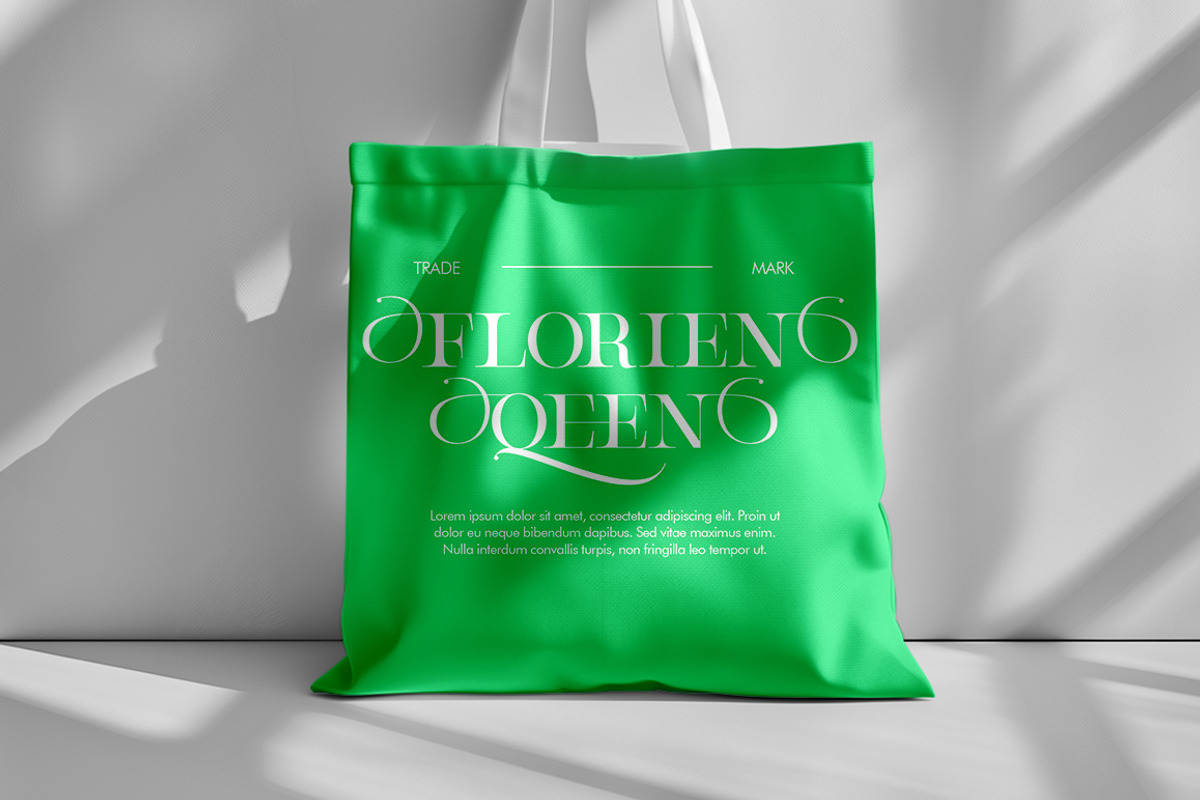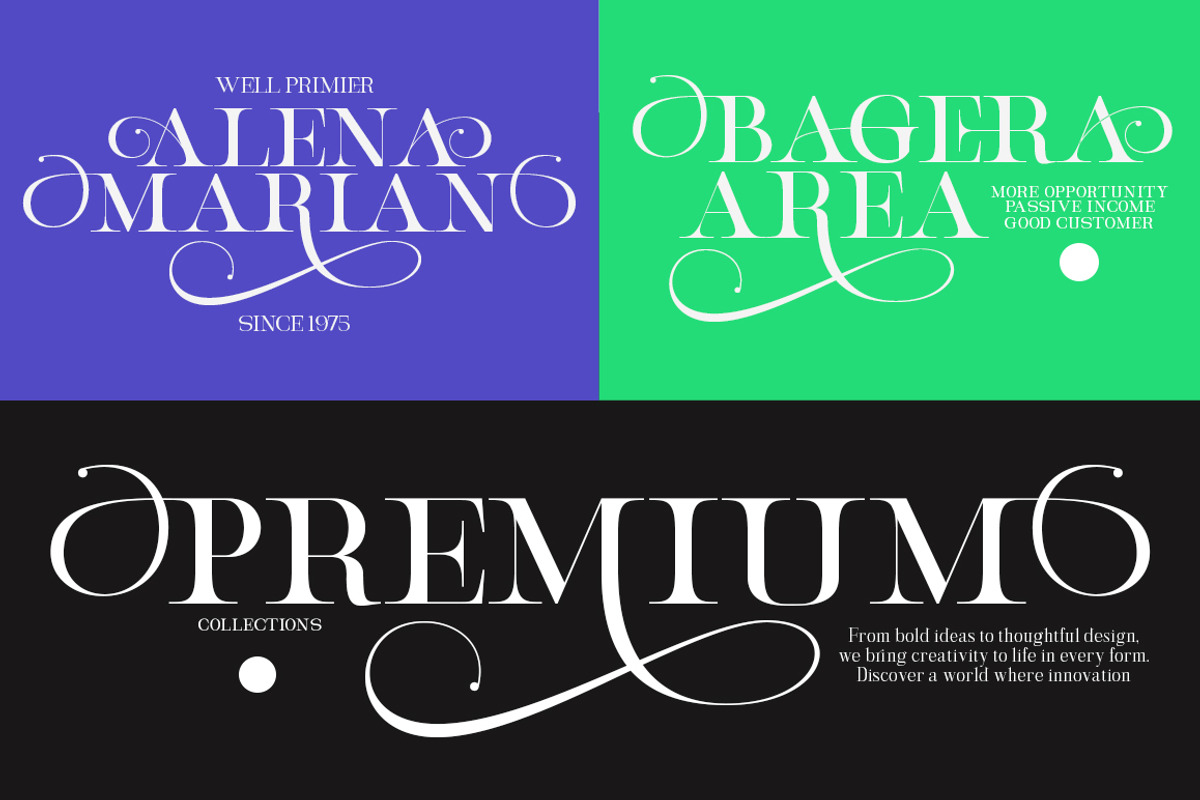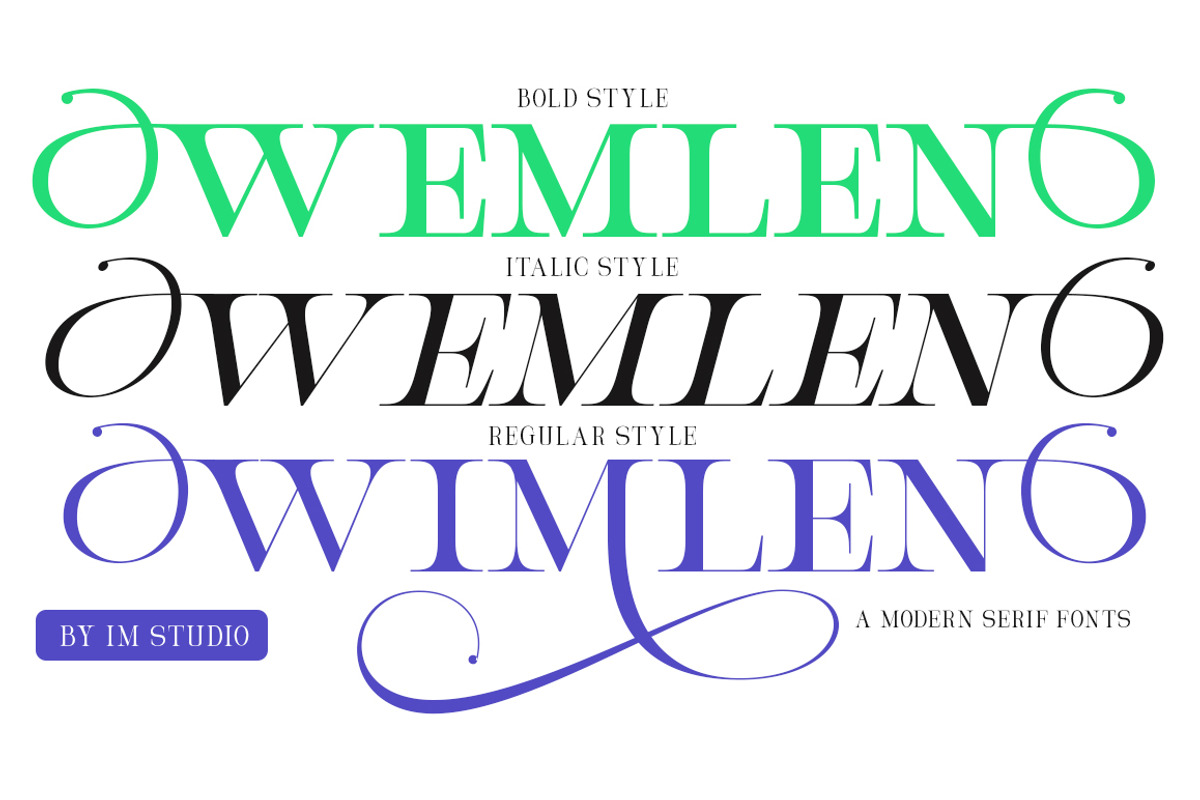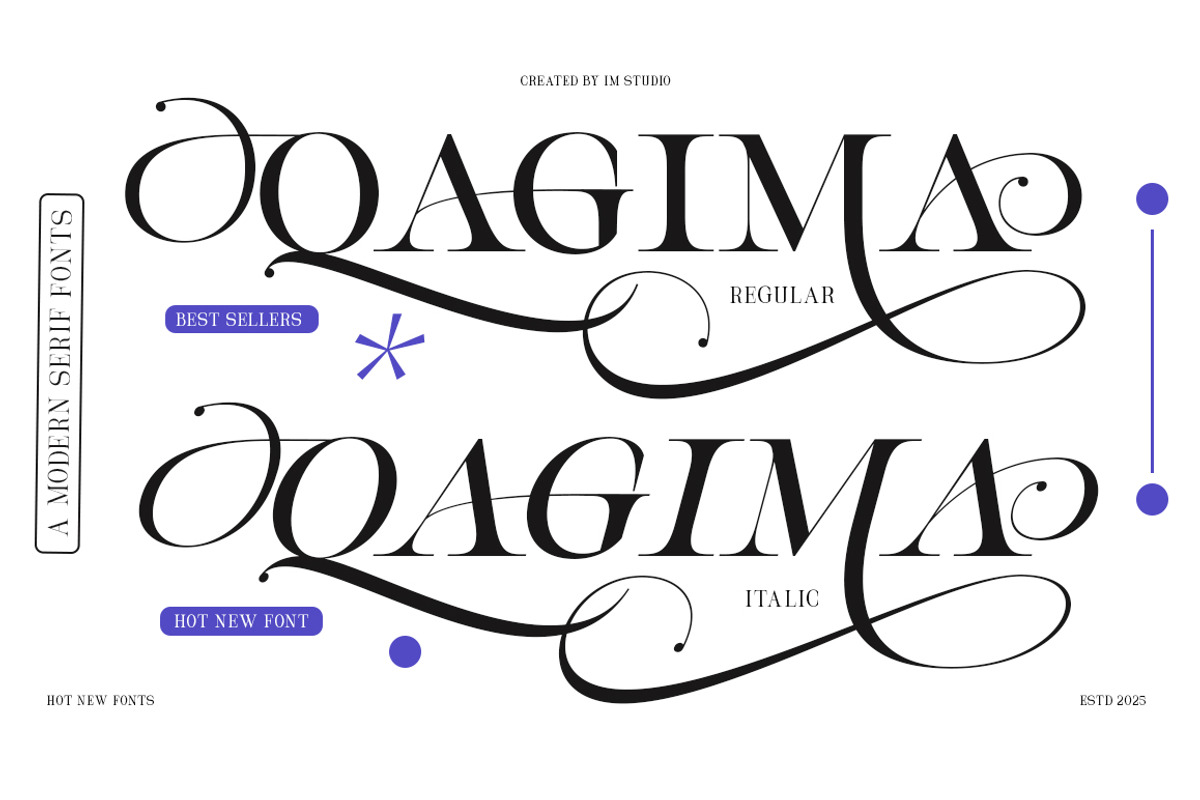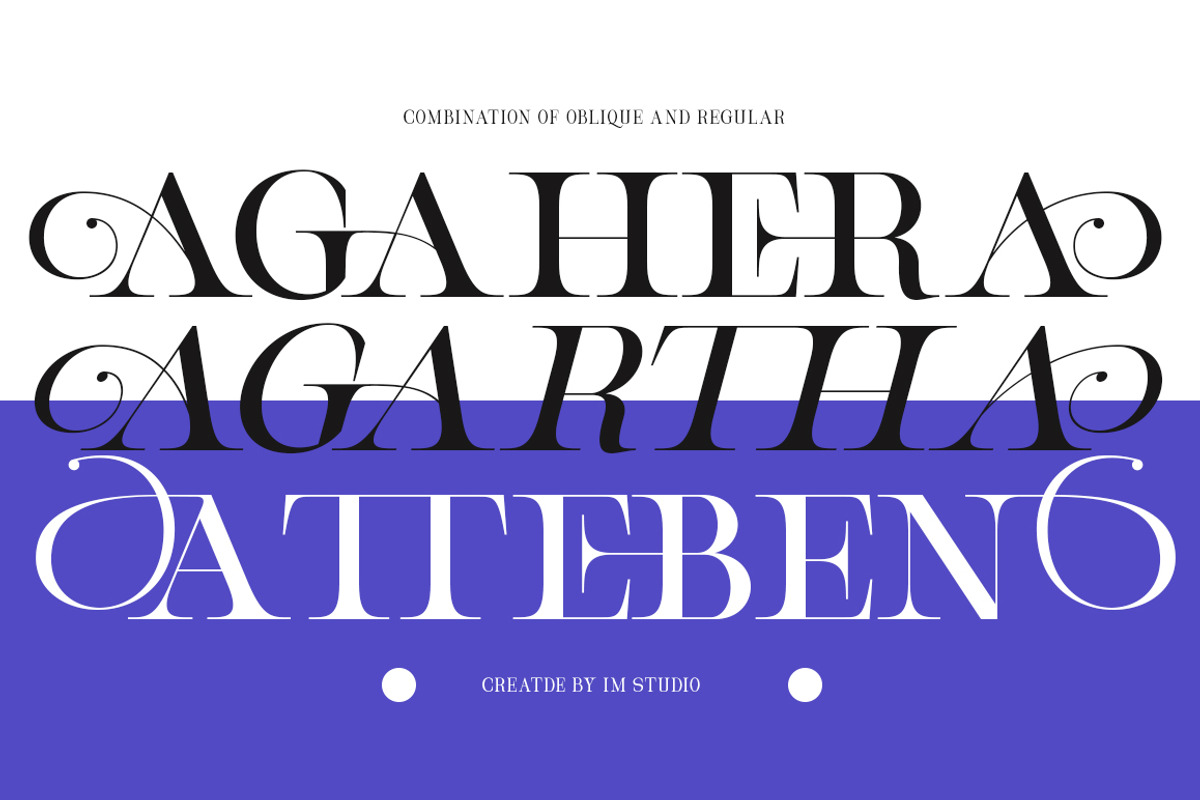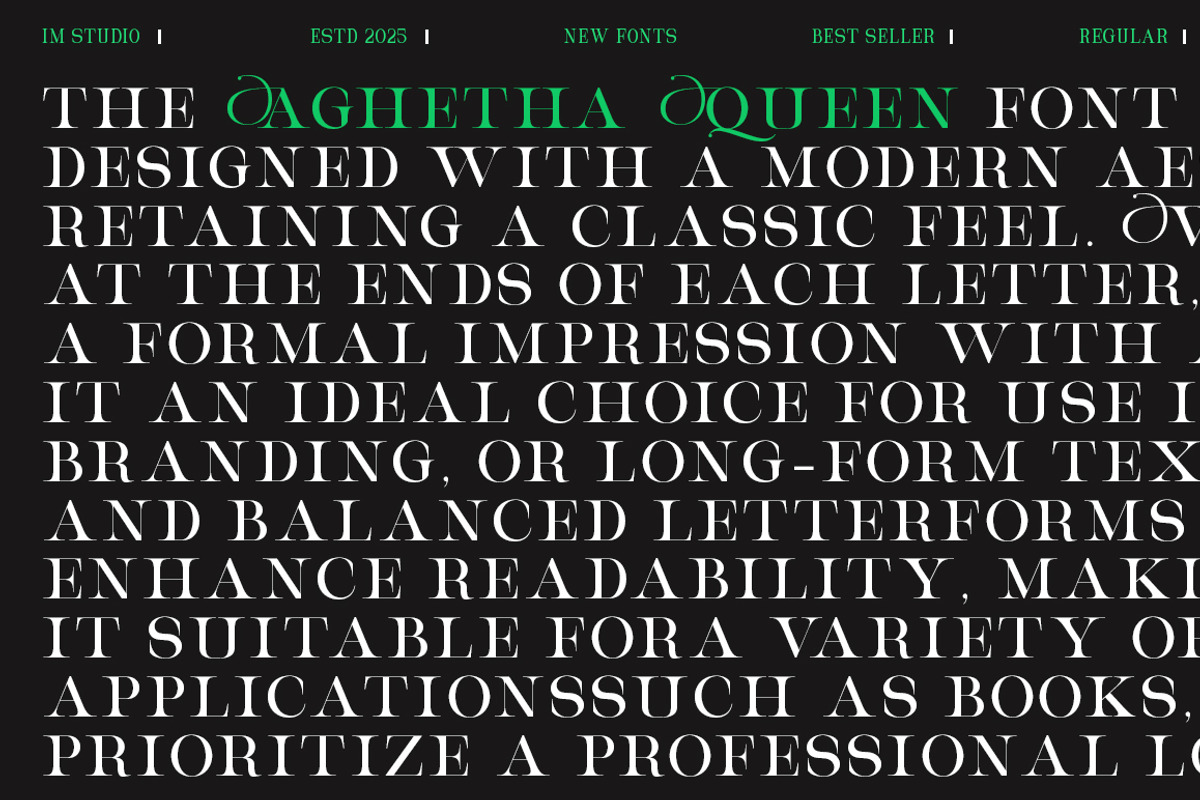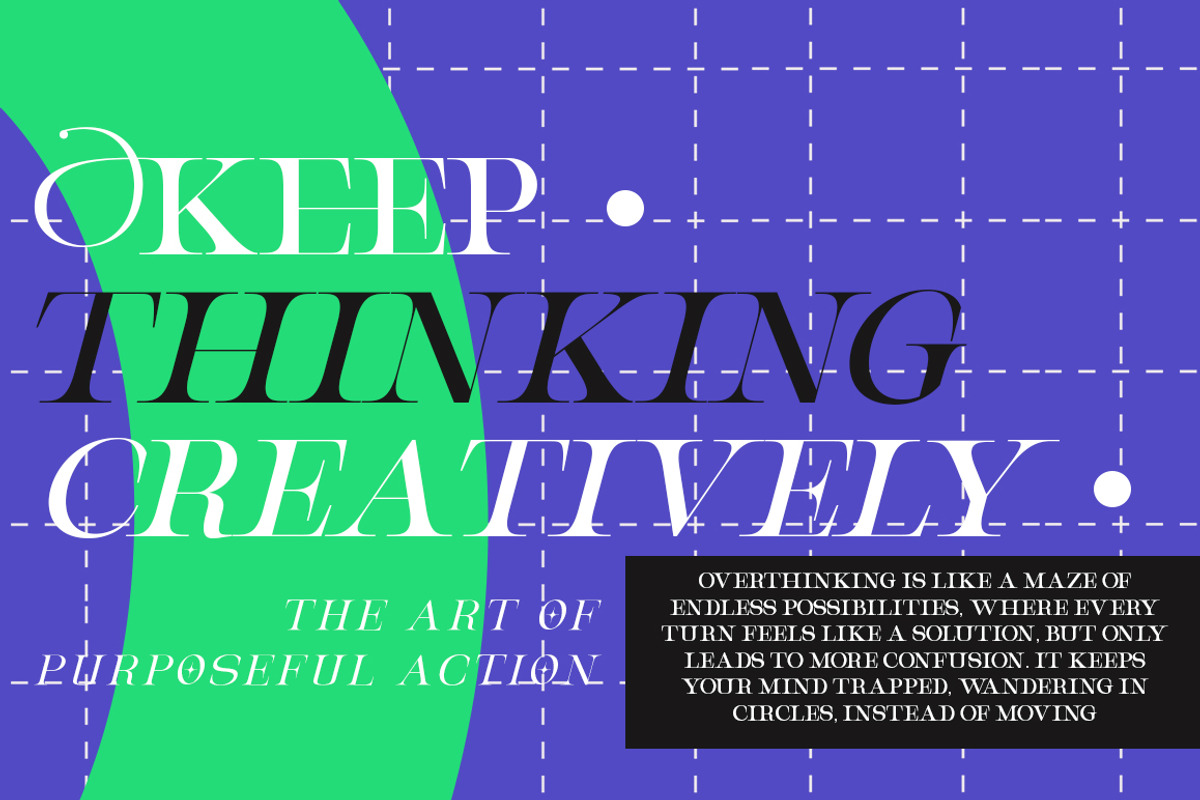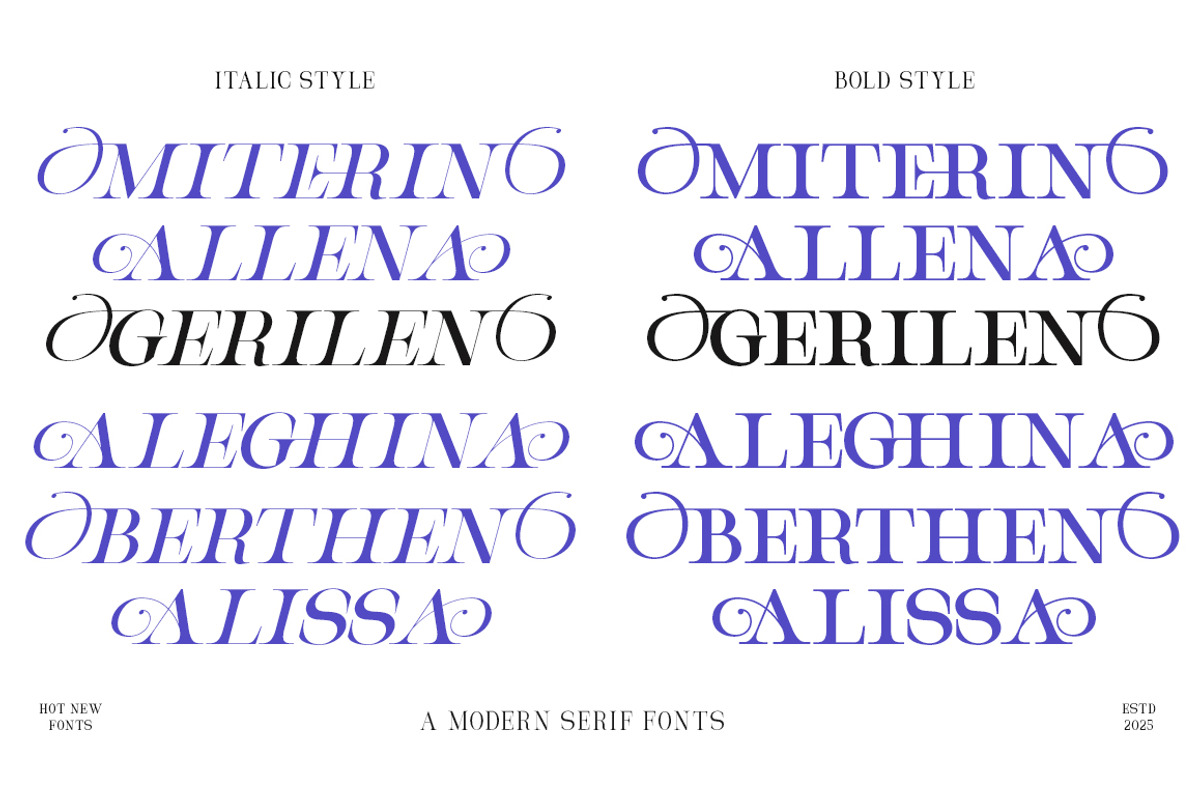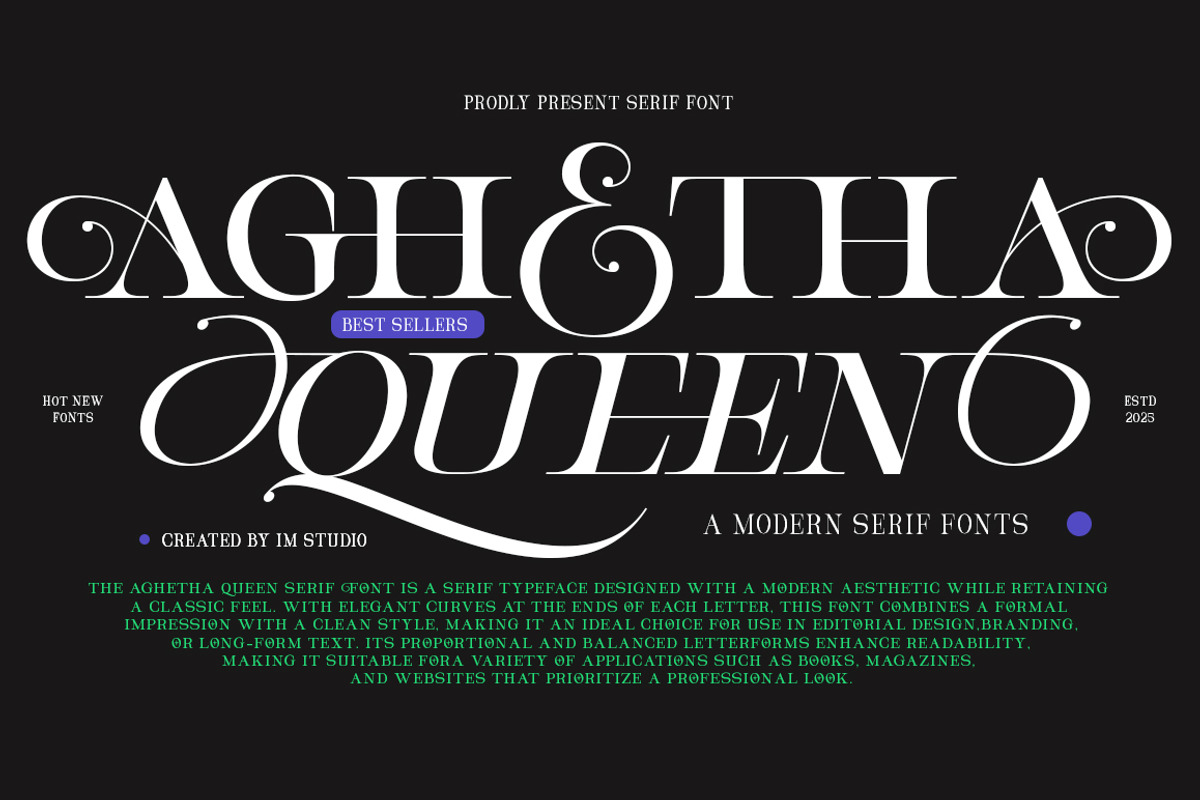
Aghetha Queen
Aghetha Queen is an elegant and charming typeface that combines classic beauty with a modern twist. Its design features gentle curves and graceful letterforms, creating a harmonious and captivating visual flow. I have enhanced Aghetha Queen with a variety of carefully designed ligatures and alternate characters, giving it even more ingenuity and creativity in its use. These features add an artistic and luxurious touch to any project, making it a perfect choice for branding, wedding invitations, and editorial layouts. With its timeless charm and perfect balance of modern and vintage details, Aghetha Queen is an ideal choice for those looking for a typeface with character and style.